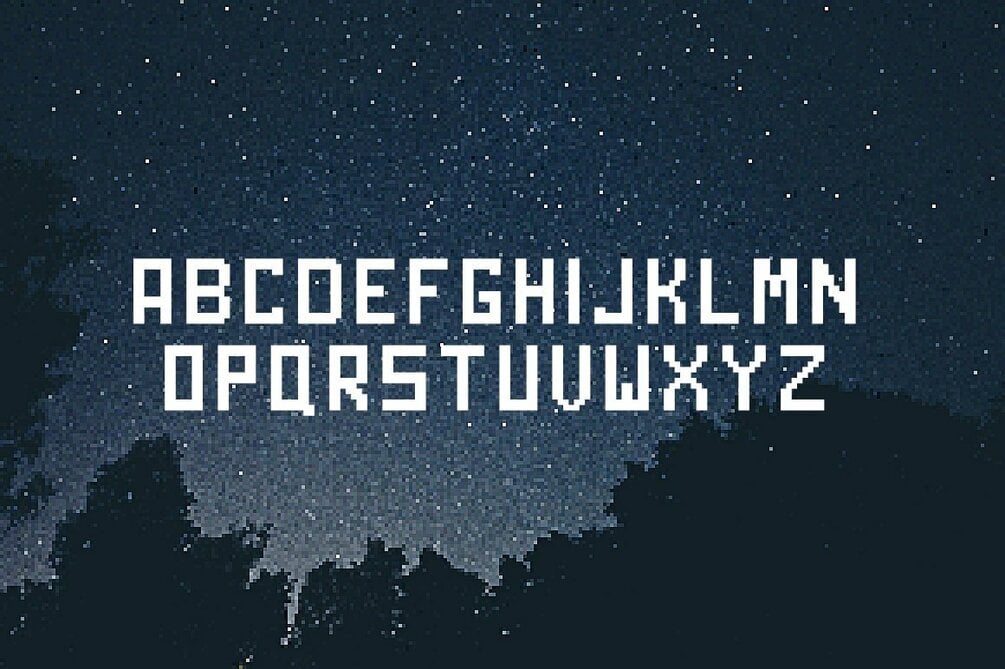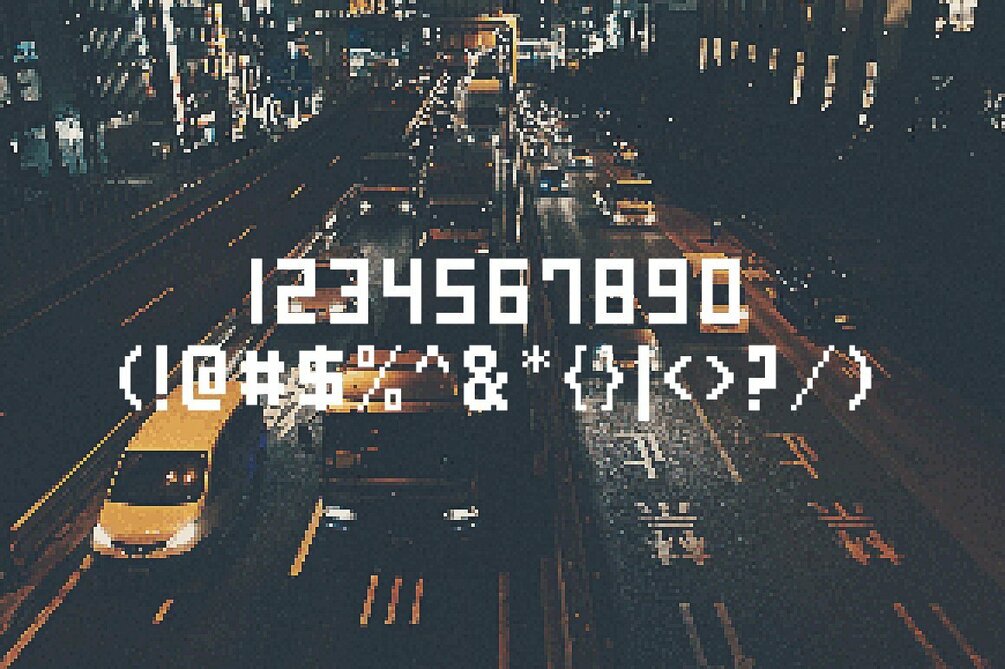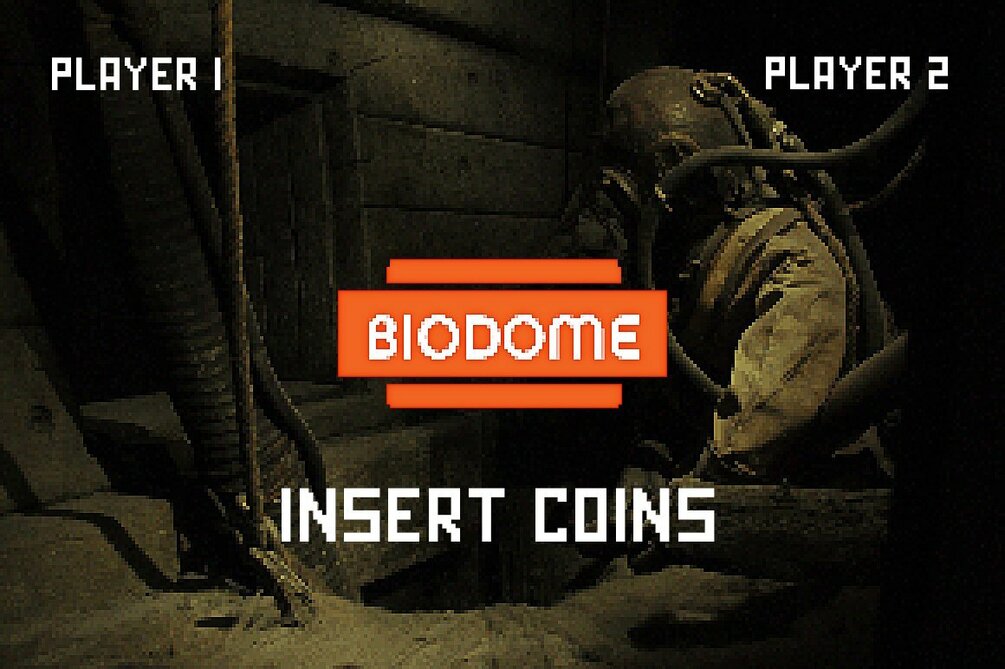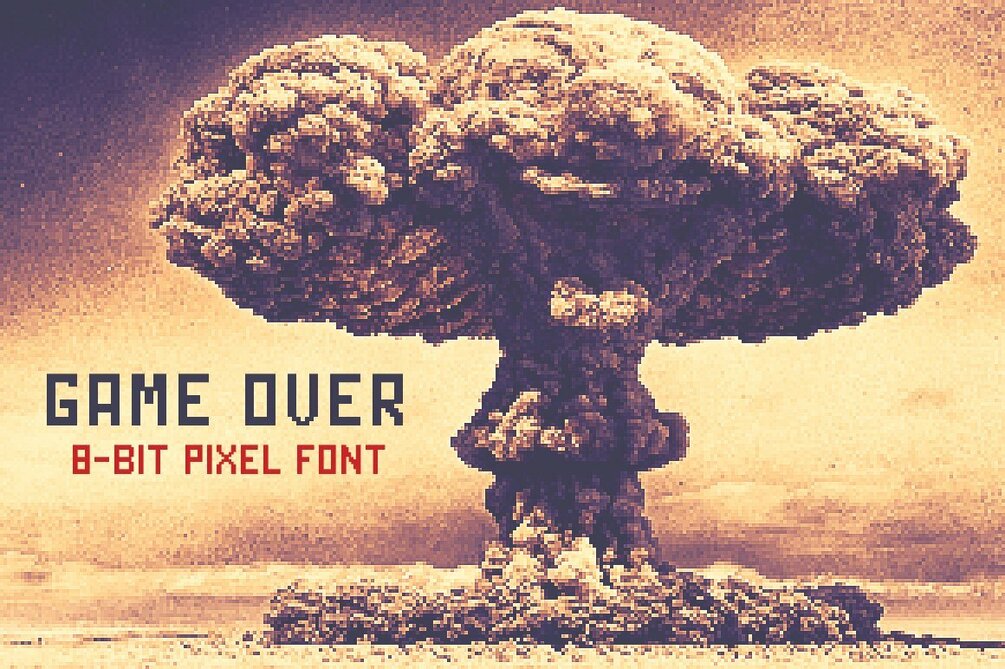
Game Over - 8Bit Font
Game Over is a fun 8-bit font full of personality. This font was inspired by the low-res bitmap lettering seen on early generation computer devices. If you grew up in the 80s or 90s, you may already have a subconscious relationship with this font thanks to SEGA, PlayStation, NES, N64, GameBoy, etc.
This font is a perfect fit for 8-bit styled illustrations, icons, logos, posters, and t-shirts.
Before you buy, please understand that the font is in all caps. You can view all the letters on the third preview image.